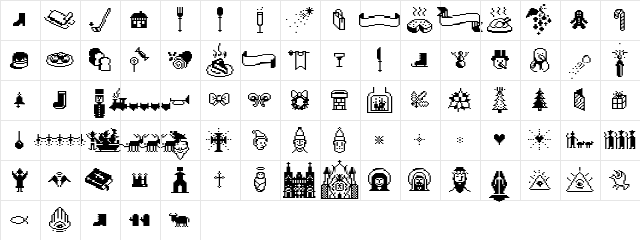
Suboel Regular
| Foundry | subtitude - Valerie Desrochers, Sebastien Theraulaz, |
Design Context for Suboel Typeface
Suboel is a composed and adaptable typeface that performs quietly and consistently across a wide range of design contexts.